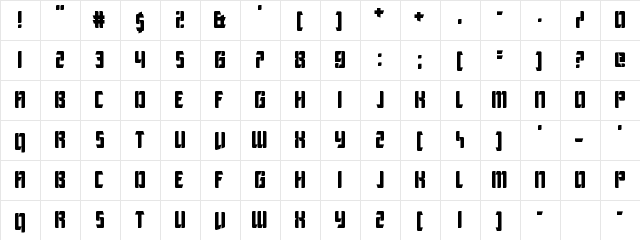
League of Extraordinary Justice Regular
Design Context for League of Extraordinary Justice Typeface
League of Extraordinary Justice is a composed and adaptable typeface that performs quietly and consistently across a wide range of design contexts.